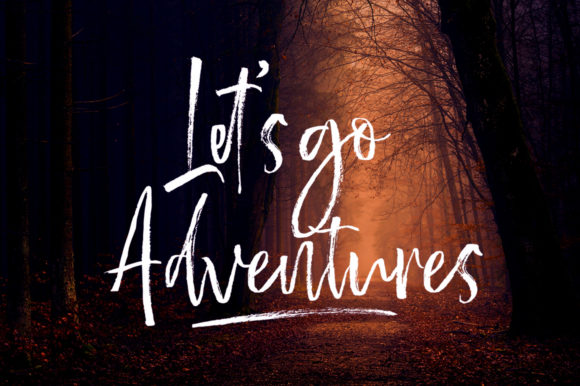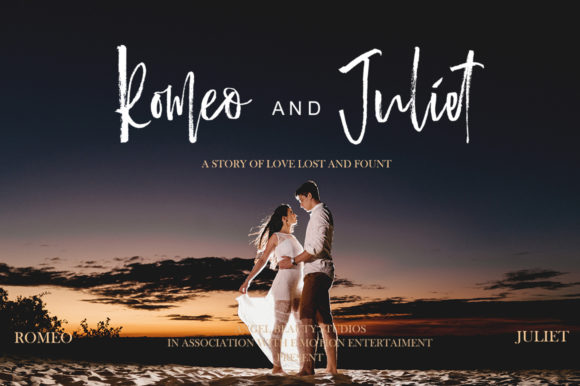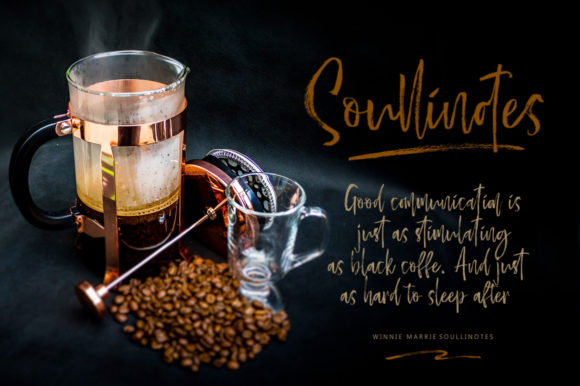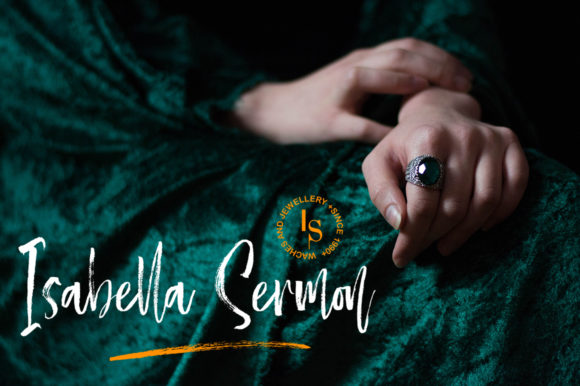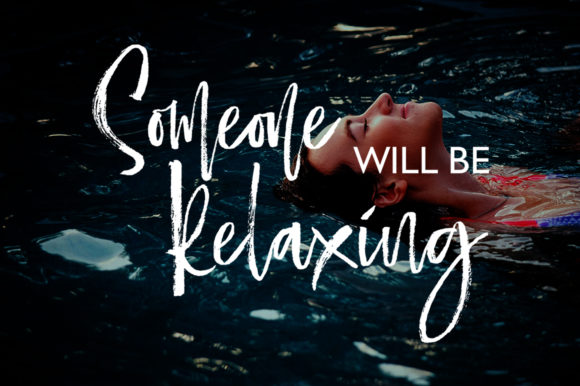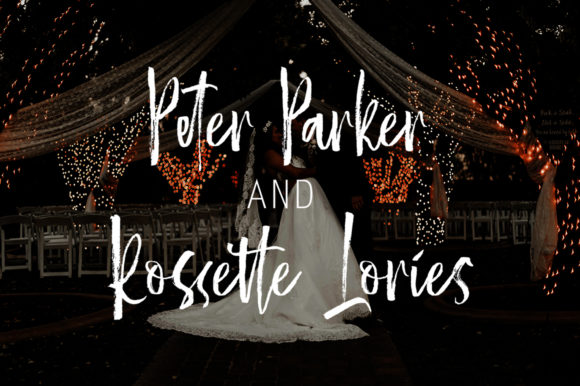
Unleash Your Creativity with the Bestromello Font
There’s something magical about the moment when an idea strikes, and your mind starts racing with possibilities. You’re brainstorming, sketching, and experimenting – the world is full of potential, and your creativity knows no bounds. And what’s the key to bringing these ideas to life? The right font, of course!
Enter the Bestromello Font, a modern brush font that’s designed to inspire and empower your creative projects. With its irregular baseline and unique character, Bestromello Font is perfectly suited for a wide variety of projects, from graphic design and digital art to branding and typography. Whether you’re a seasoned designer or just starting out, this versatile font is an invaluable asset in your toolkit.
So why is the Bestromello Font so valuable to designers? Its adaptability and expressiveness make it an ideal choice for any project that requires a touch of personality and flair. By incorporating the Bestromello Font into your designs, you’ll be able to add a level of sophistication and elegance that’s hard to achieve with more traditional fonts.
Bestromello Font Key Features
- Font Family: Bestromello is a unique, elegant script font designed to add a touch of sophistication to any design project.
- Unique Characteristics: Features a distinctive, flowing script style with elegant connections between letters, making it perfect for titles, headings, and other design elements where a touch of elegance is desired.
Designer Review: Bestromello Font
After taking a closer look at the Bestromello Font, I can say that it has its unique charm and potential. ✨ One of the things that works well is the elegant, modern aesthetic it brings to a design. The clean lines and rounded edges make it suitable for a wide range of applications, from fashion and lifestyle to tech and software.
- ✨ The Bestromello Font has excellent legibility, making it easy to read even in smaller sizes.
- ✨ The font is highly customizable, with various weights and styles to choose from.
- ✨ It’s also a great choice for creating visually appealing headlines and titles.
However, there are some limitations to consider. ⚠️ One of the main issues is that the font may not be as versatile as some other options, particularly when it comes to bold and italic styles. Additionally, the font may not be as suitable for body text, as it can feel a bit too ornate for longer passages of text.
Overall, the Bestromello Font is a solid choice for designers looking for a modern, elegant aesthetic. While it may not be the best option for every project, it’s definitely worth considering for applications where a touch of sophistication is needed.
Bestromello Font is ideal for creating elegant and sophisticated designs in Canva, such as wedding invitations, business cards, and social media graphics.
Bestromello Font is perfect for creating intricate and detailed designs in Adobe Photoshop and Illustrator, such as logos, typography, and graphics.
Bestromello Font is ideal for creating professional and polished presentations and documents in PowerPoint and Word.
Bestromello Font is perfect for:
- Creativity and artistic expression
- Business cards and branding
- Social media graphics and advertising